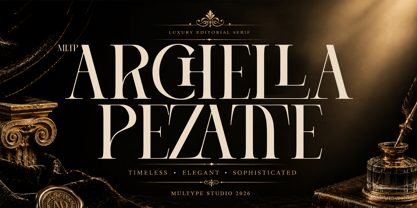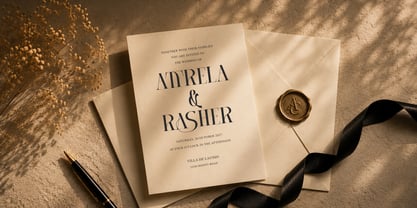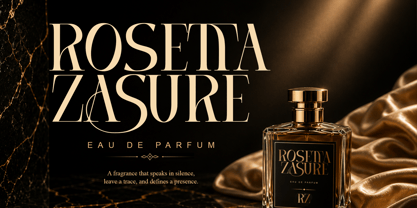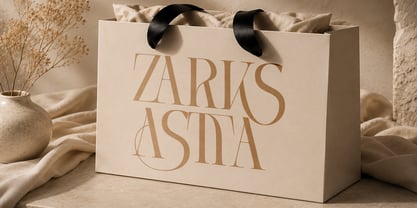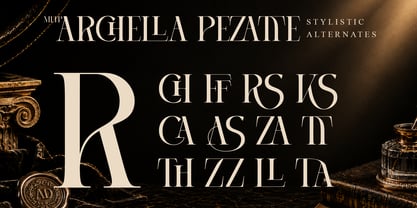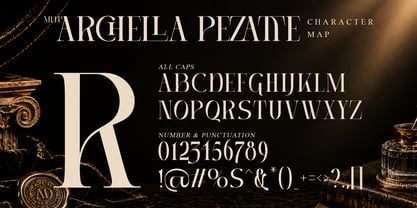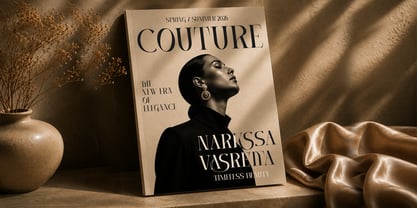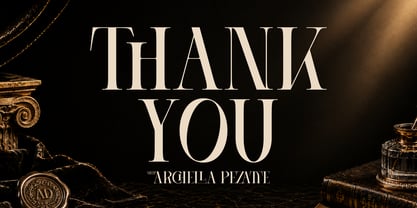
MLTP Archella Pezatte
MLTP Archella Pezatte is a sophisticated luxury serif font designed to elevate premium branding, editorial design, wedding stationery, fashion campaigns, cosmetic packaging, logo design, magazine layouts, and high-end marketing materials.
Inspired by timeless European elegance and modern luxury aesthetics, MLTP Archella Pezatte features striking high-contrast letterforms, graceful curves, refined serifs, and beautifully crafted stylistic alternates. Every character is meticulously designed to create a powerful visual presence while maintaining exceptional readability and elegance.
Whether you're creating a luxury fashion brand, boutique logo, wedding invitation, beauty packaging, jewelry branding, or editorial headline, MLTP Archella Pezatte delivers a distinctive and memorable typographic experience that captures attention effortlessly.
Its combination of classic sophistication and contemporary refinement makes it an ideal choice for designers seeking a versatile serif font with a premium, upscale appearance.